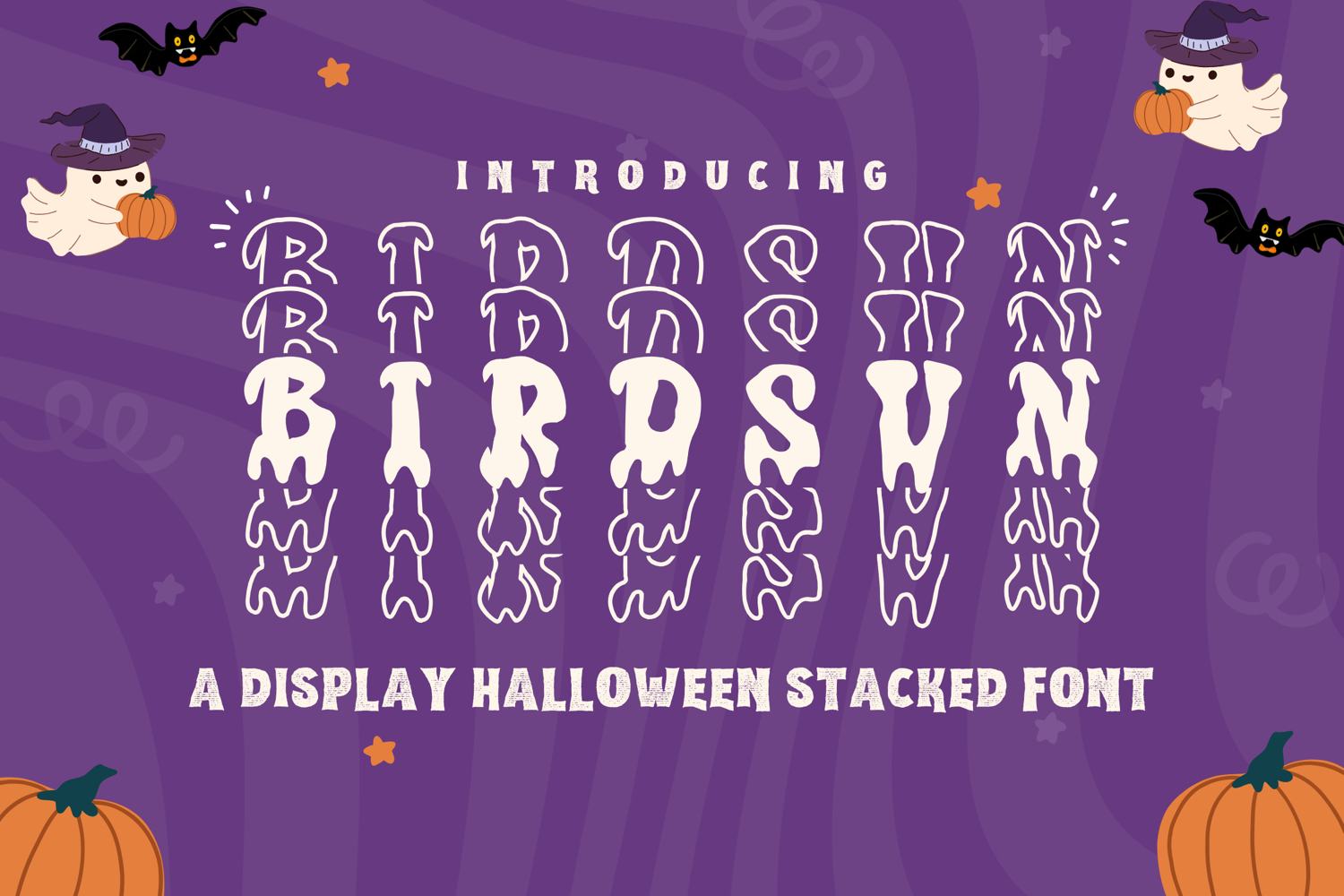
Birdsun Halloween Stacked - Spooky & Playful Display Font
Birdsun Halloween Stacked
Get ready for a frightfully fun design season with Birdsun Halloween Stacked, a bold and quirky display font perfect for adding Halloween flair to your creative projects! This font combines stacked lettering with spooky charm, making it ideal for everything from party invitations to eerie t-shirt designs.
With a playful twist and spooky vibe, Birdsun Halloween Stacked is perfect for designers who want to add a touch of haunted fun to their work.